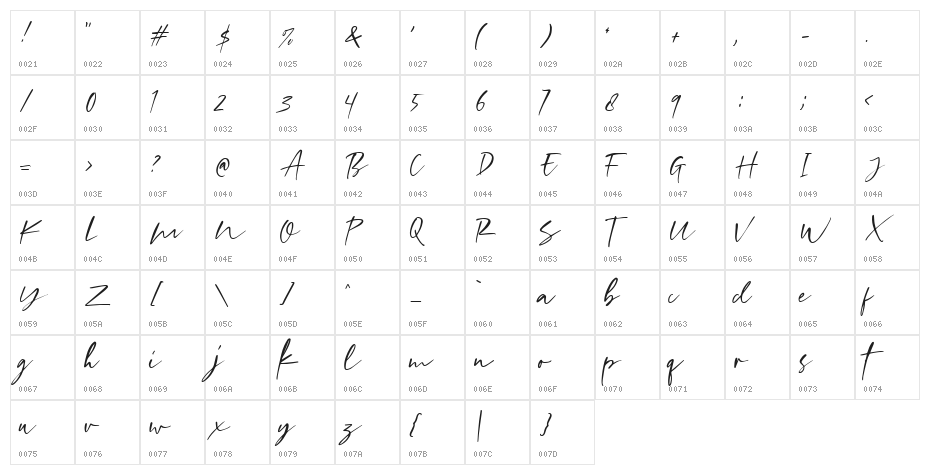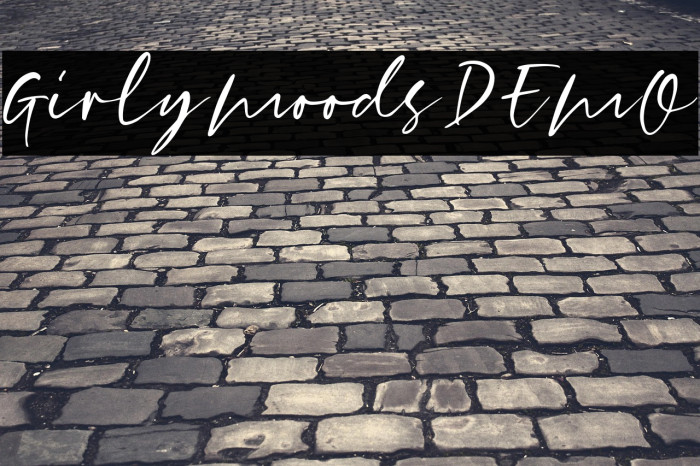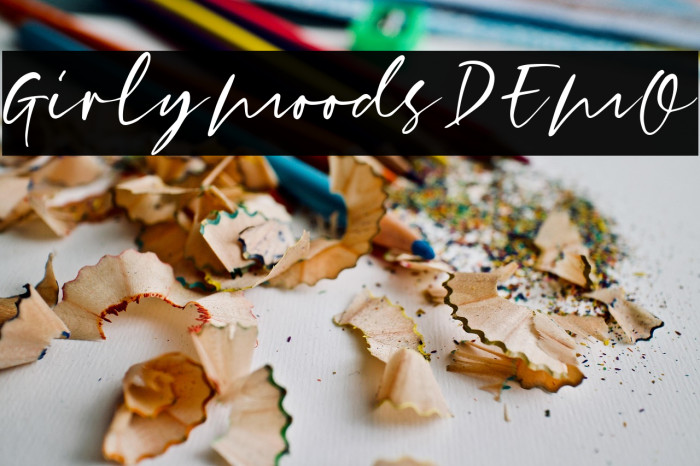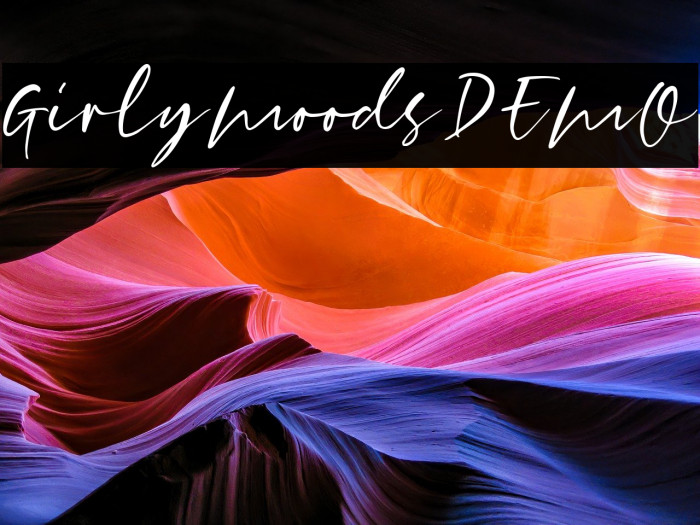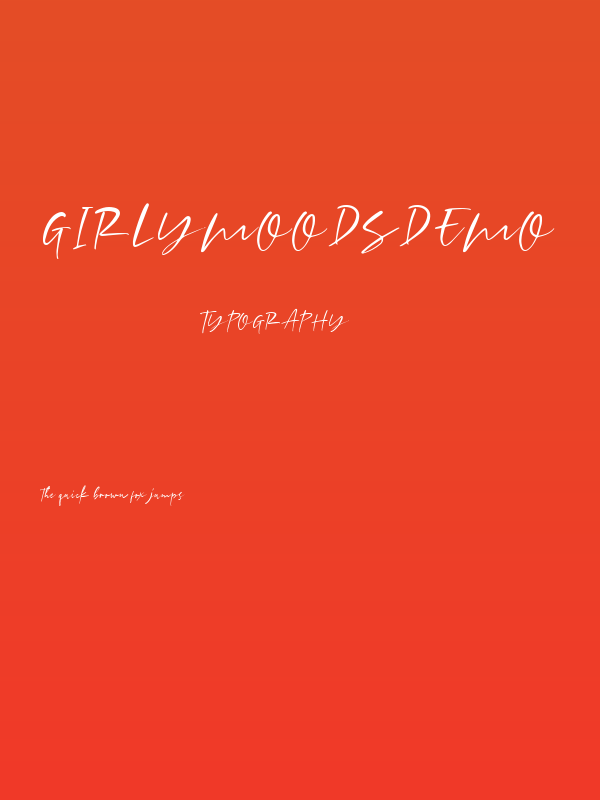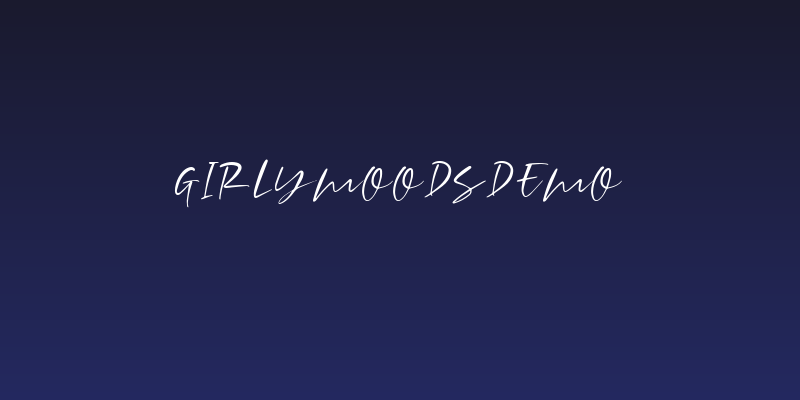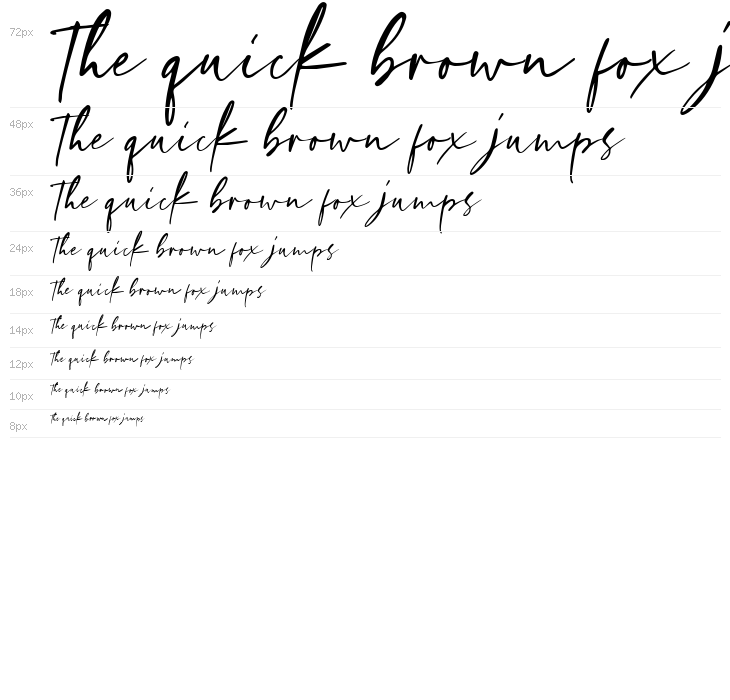
GirlyMoodsDEMO Font
GirlyMoodsDEMO Description
This font features a lively and expressive handwritten style, characterized by its fluid and dynamic strokes. The letters are elegantly connected, giving a sense of motion and personality. The uppercase letters are bold and slightly elongated, while the lowercase letters maintain a consistent flow with a slight slant. The numerals are distinct and maintain the same energetic style, making them easily readable. Special characters are integrated seamlessly, enhancing the font's versatility. This font exudes a playful yet sophisticated charm, making it suitable for a variety of creative applications.